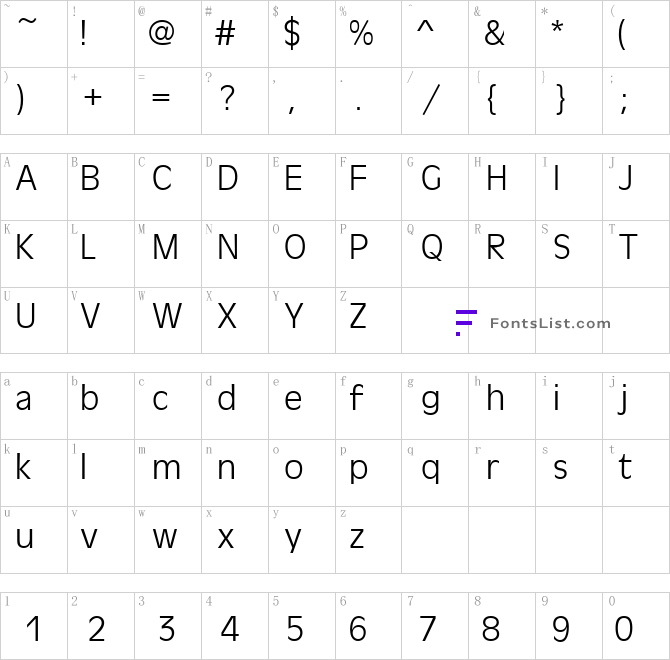
- Font Name:Antigoni Light
Antigoni-Light.ttf is a very beautiful artistic font, Antigoni-Light.ttf is widely used in the design and printing of various books and pictures,Antigoni-Light.ttf has a strong visual impact,Antigoni-Light.ttf is a commonly used font in newspapers, magazines and books, and is used in posters, e-commerce Poster design, store design, logo design, font design and other fields.Antigoni-Light.